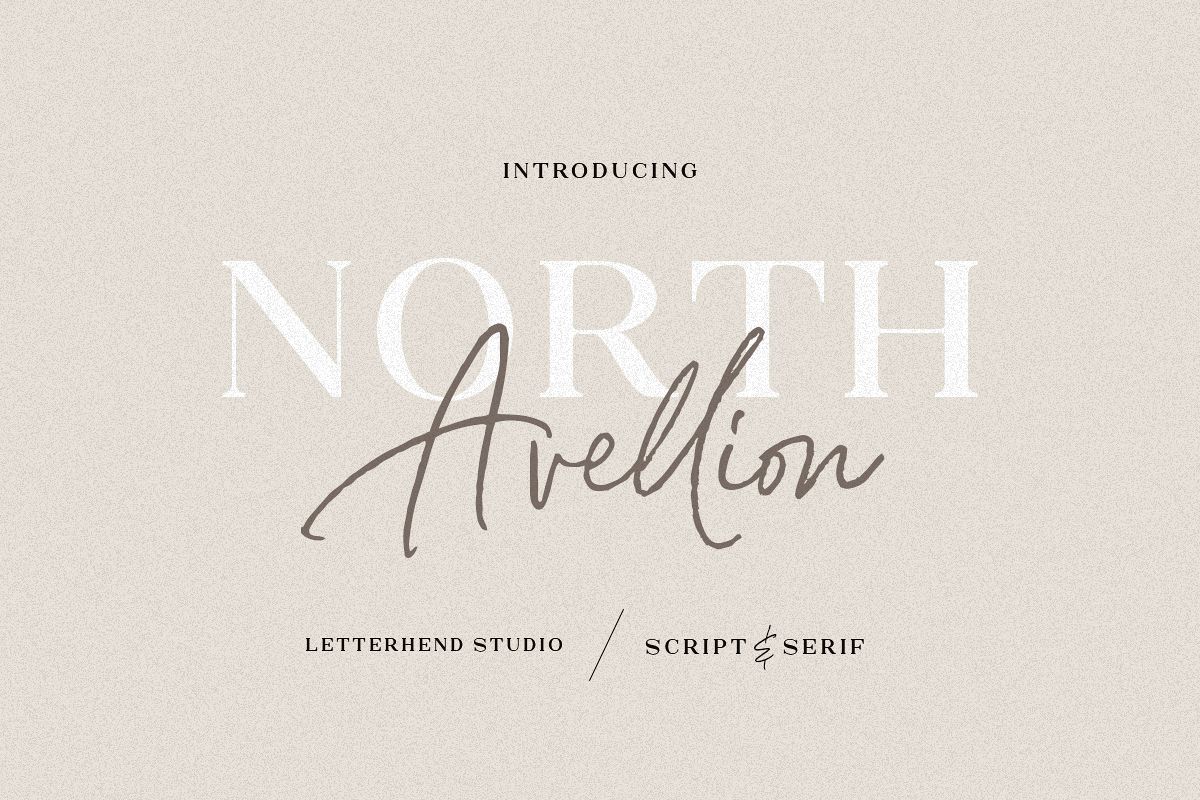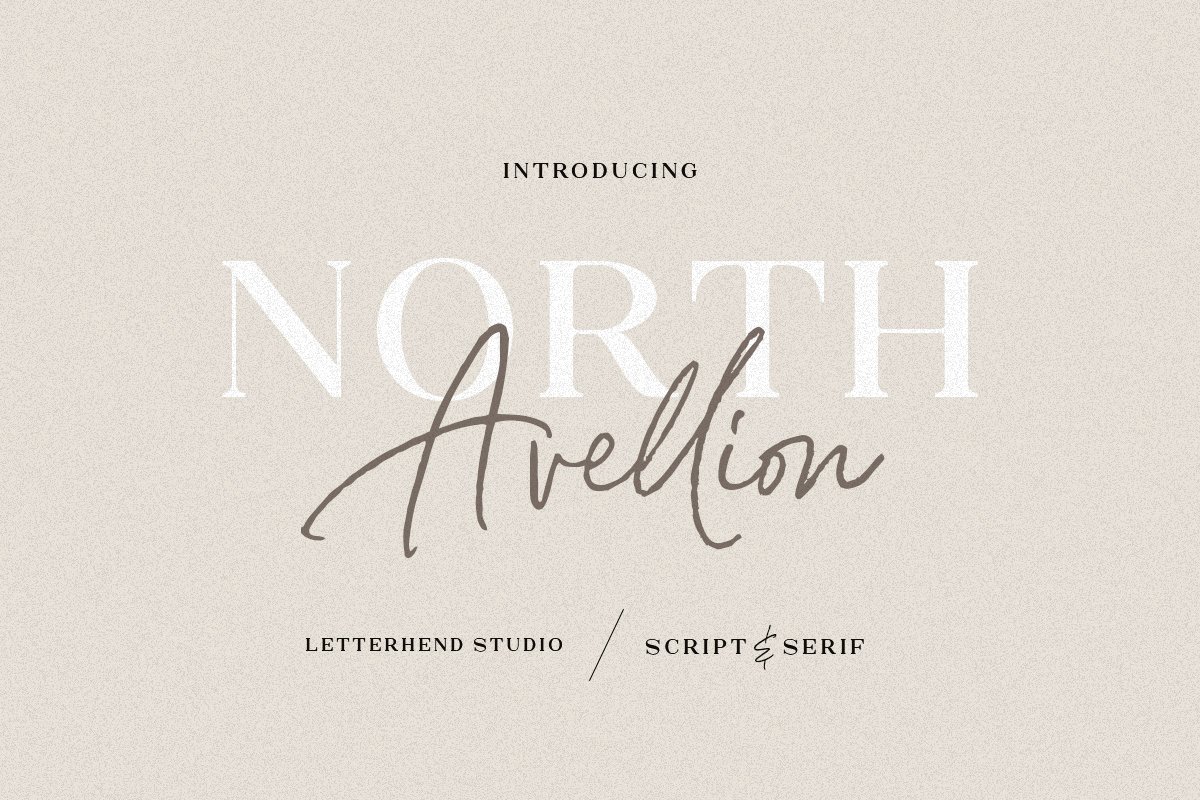
North Avellion - Script & Serif Duo
North Avellion
Introducing, North Avellion. A perfect pair of serif and script! This typeface has classic style yet still looks great for modern design. They works perfect for you who needs a typeface for headline, logotype, apparel, invitation, branding, packaging, advertising etc.Features :
• uppercase & lowercase
• numbers and punctuation
• multilingual
• ligatures
• alternates
• swashes